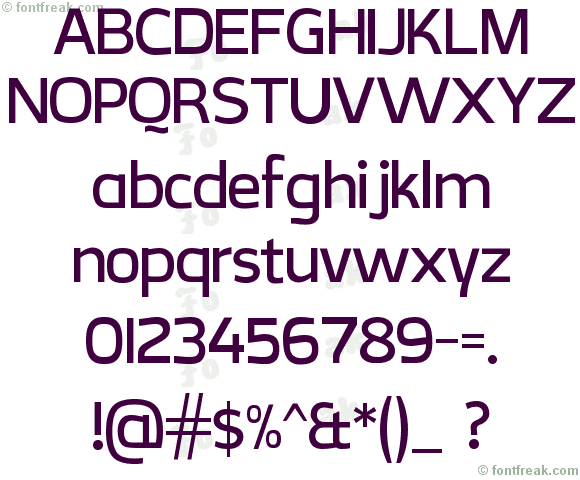
CreativZoo Regular
About CreativZoo Regular
CreativZoo Regular, crafted by designer Steve Gardner, is a striking display font that balances modernity with playfulness. This sans-serif typeface features clean lines and a slightly rounded edge, making it approachable and versatile. The stroke weight is consistent, providing a uniform appearance that enhances readability. The spacing between characters is well-considered, ensuring clarity while maintaining a dynamic feel. This font does not rely on excessive decorative elements, allowing its simplicity to shine through.
CreativZoo Regular is ideal for a variety of creative projects. It works exceptionally well for wedding invitations, where its inviting style adds a touch of elegance without being overly formal. Additionally, the font’s playful aesthetic makes it a great choice for children’s book covers, where a friendly vibe is essential. Movie posters can also benefit from its boldness, capturing attention and drawing in potential viewers. Restaurant menus find a perfect match in this typeface, as it conveys both professionalism and warmth, enticing diners to explore the offerings. Furthermore, content creators will appreciate its versatility for social media graphics, ensuring that their messages stand out in a crowded digital landscape.
What sets the CreativZoo Regular font apart is its ability to resonate with various audiences while maintaining a distinct identity. Its friendly, modern design ensures that it will not only grab attention but also create a lasting impression. For those looking to elevate their projects, the CreativZoo Regular font free download offers an excellent opportunity to enhance creativity and engagement.